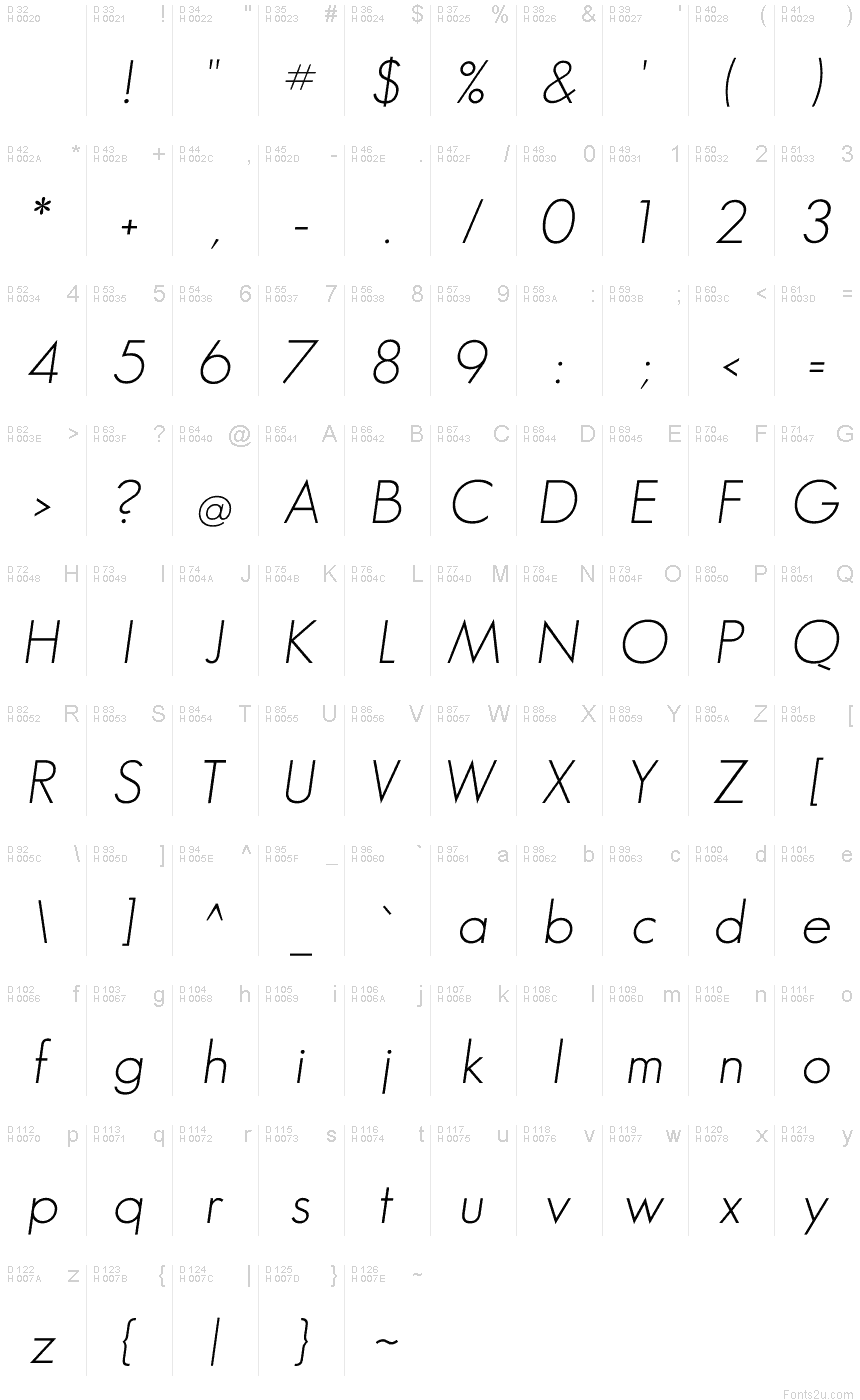
GeosansLight-Oblique
Geosans Light Oblique font by M. Klein is a free sans serif typeface that gives you a soft, modern slant without turning stiff or corporate. Its rounded curves and airy strokes feel smooth and weightless, while the gentle italic angle adds motion and friendliness instead of drama. Letters sit with comfortable spacing, so even longer lines stay relaxed and readable on screens and in print.
Using Geosans Light Oblique, you can bring a clean, contemporary voice to tech branding, app interfaces, minimalist posters, product packaging, slide decks, and understated logos. This free font shines when you want something geometric yet welcoming, with just enough personality to stand out in a quiet way. Try pairing it with a neutral serif for body text, or run it slightly larger for headlines to let those open, curving shapes breathe.